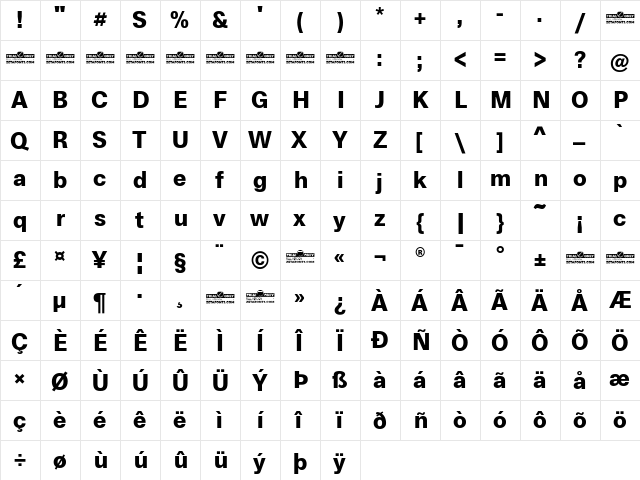
Boring Sans A Trial Bold
Bold · Zetafonts Cosimo Lorenzo Pancini ·
Design Context for Boring Sans A Trial Typeface
Boring Sans A Trial offers clean, dependable letterforms without strong stylistic allegiance, making it a practical choice for designers who need flexibility. The heavy weight commands attention and anchors typographic hierarchies.